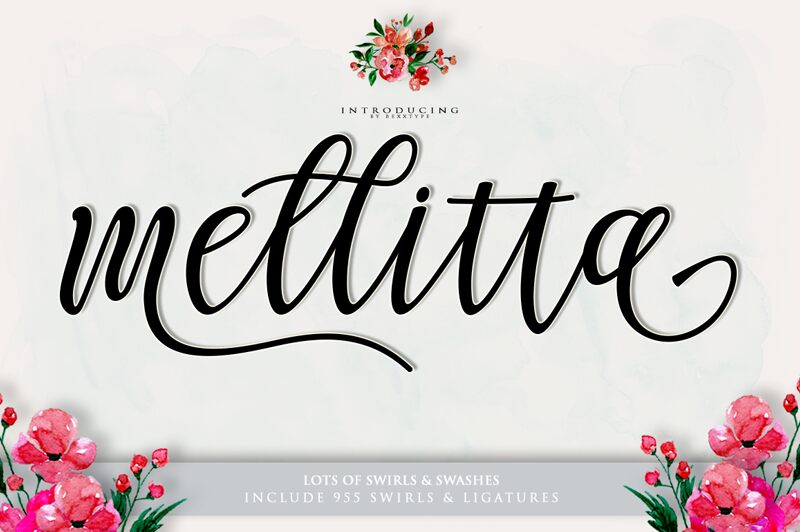
Mellitta Script is a captivating calligraphic font that exudes elegance and sophistication. Crafted by designer Syahputra/Bexxtype, this script font boasts a seamless, flowing motion, with each character seemingly dancing across the page. The organic, hand-lettered strokes lend an air of artistry and individuality, making Mellitta Script an excellent choice for a variety of design applications, from luxury branding and editorial layouts to wedding stationery and personalized invitations. Its versatility and timeless appeal make it a valuable asset for designers seeking to infuse their projects with a touch of refined, sophisticated charm.
The distinctive flourishes and ligatures of Mellitta Script create a sense of movement and fluidity, transforming even the simplest of messages into visually striking compositions. This font's ability to convey a sense of graceful, effortless beauty makes it an ideal selection for projects that seek to evoke a mood of elegance, romance, or artistic flair.
Mellitta Script